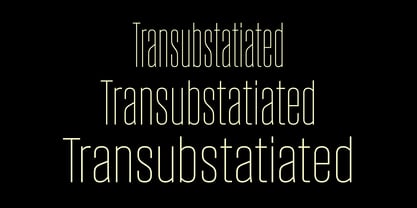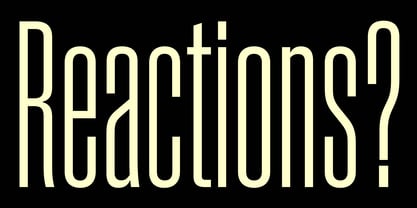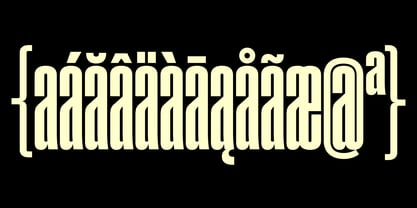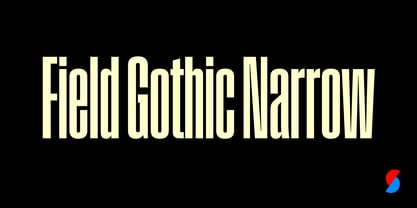
Field Gothic Narrow
The Field Gothic Narrow Font Family was designed by Max Phillips and published by Signal Type Foundry. Field Gothic Narrow contains 48 styles and family package options. More about this family
We never meant to design Field Gothic. All we wanted was a version of our Pressio with conventional rounded counters, which we thought might sell better to the corner-averse. But then we realized that, without those squared-off counters, we could do extra-light and hairline weights, and add more widths. And eventually Field Gothic snowballed into a 128-style, possibly-too-personal journey through the history of American and European sanses that may or may not parallel our own journey from New York City to Dublin. The Narrow Range draws inspiration from midcentury Geigy promotions, old Westinghouse lightbulb packs, sheets of Letraset Compacta, and yellowing copies of Twen. Overall, the look is crisp and on the cool side, with slightly superelliptical curves. The x-height is high; punctuation and diacritics are substantial. The lightest weights are almost monoline. Above that, arches and bowls have sharply contrasting junctures and a snug fit for maximum impact in headline sizes.